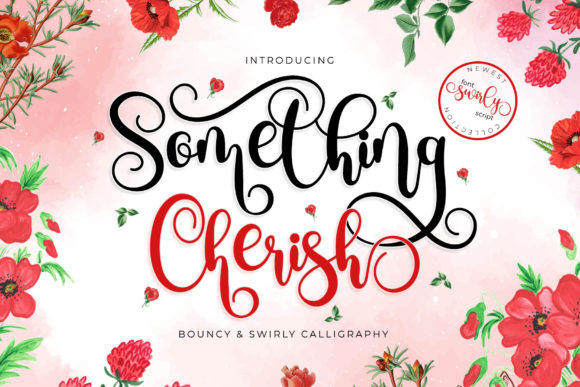
Prepare yourself to be captivated by the alluring beauty of Something Cherish, a script font that exudes romance and sweetness. Its characters, like graceful dancers, pirouette along the baseline, adding an enchanting touch to every design project you embark on.
Step into a world of elegance and charm with Something Cherish. Its delicate strokes and playful curves will elevate your designs, captivating the hearts of your audience. Whether you're crafting heartfelt Christmas cards, whimsical invitations, or heartwarming social media posts, Something Cherish is your perfect companion.
With Something Cherish, the possibilities are limitless. Create stunning logos that radiate sophistication, design eye-catching posters that demand attention, or add a personal touch to your branding materials. Let your creativity soar as you explore the endless opportunities this exquisite font presents.
Immerse yourself in the magic of Something Cherish and watch your designs come to life. Its PUA encoding grants you effortless access to a treasure trove of glyphs and ligatures, empowering you to unleash your imagination and add a touch of individuality to your projects.
Don't let this enchanting font pass you by. Embrace the artistry of Something Cherish and transform your designs into masterpieces. Let its romantic aura captivate your audience and leave a lasting impression.